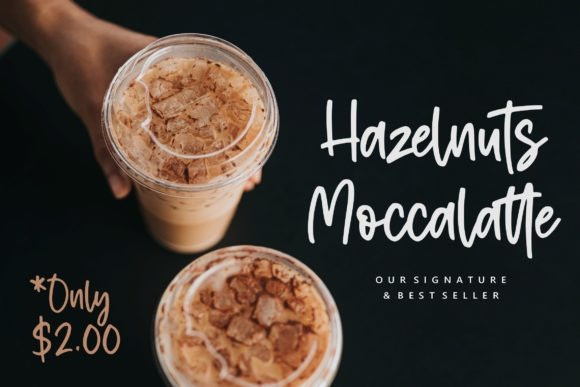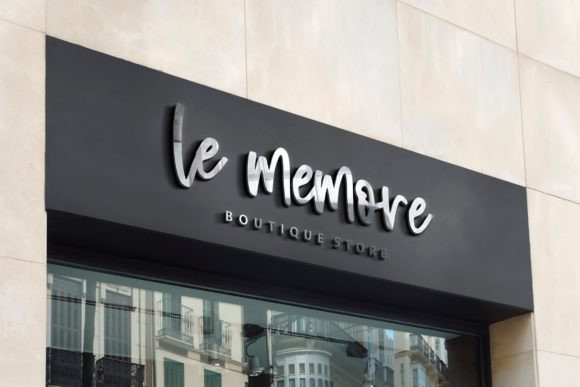
Mode Style Handwritten Font
Mode Style Handwritten Font is about style, pairing the right one with the best one. Let me introduce Mode Style, best paired font between Sans Serif and Handwritten Script. It’s suitable for logo, display purpose, or something else that needs elegant style.